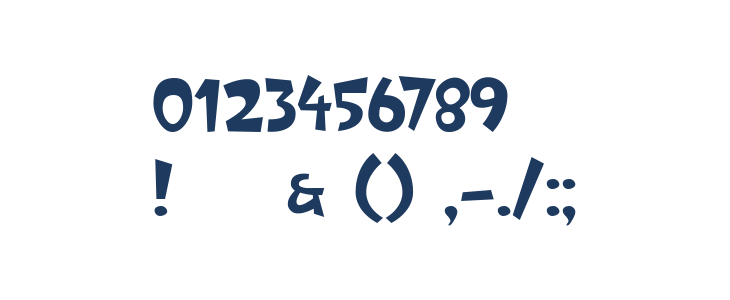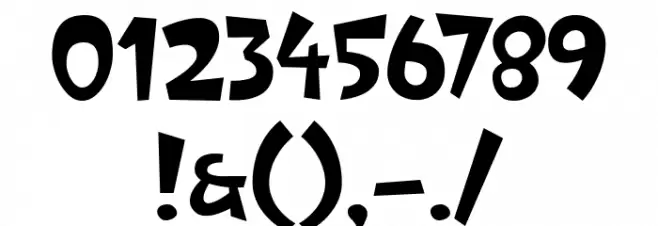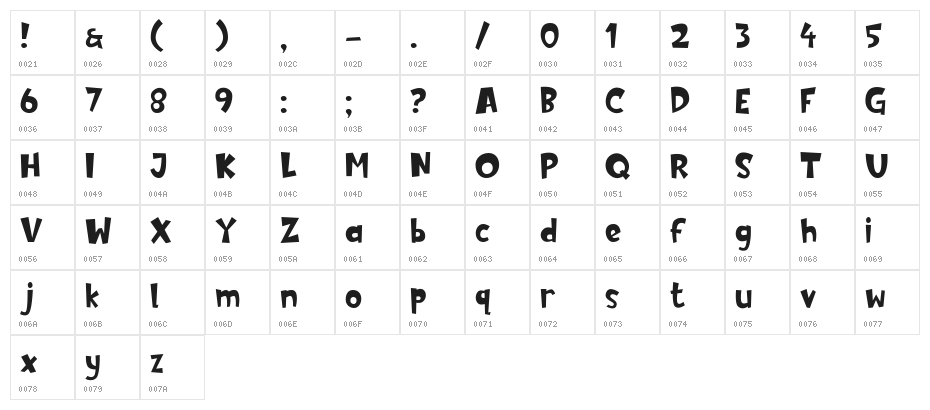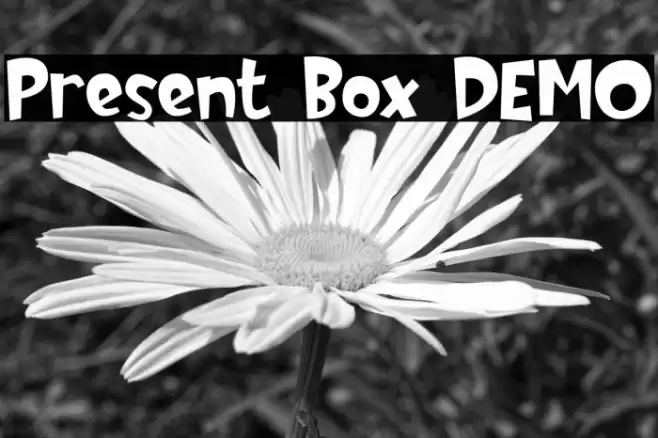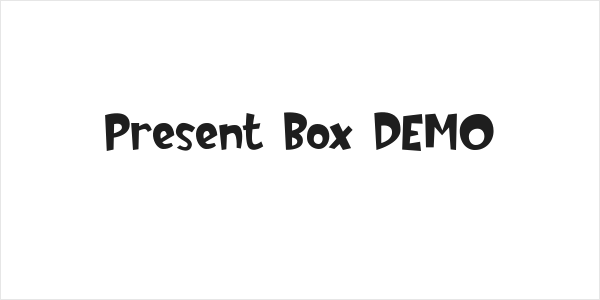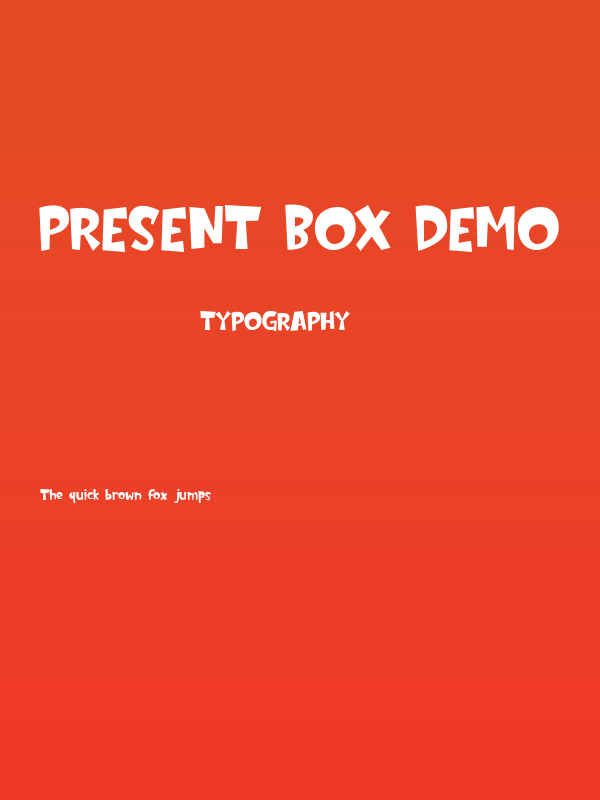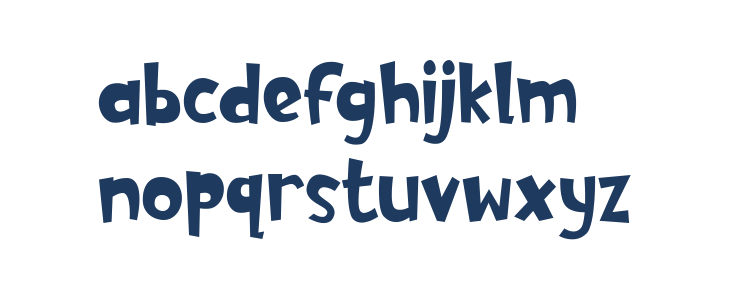
Present Box DEMO Font
Present Box DEMO Description
This playful and bold font features a whimsical and slightly irregular design, giving it a lively and energetic feel. The uppercase letters are robust and dynamic, with varying stroke thickness that adds to its playful nature. The lowercase letters maintain a similar style, with a slightly more relaxed and informal appearance. The numbers are bold and consistent with the overall style, ensuring readability while maintaining the font's unique character. Special characters are creatively designed, adding to the font's versatility for various uses. The overall impression is one of fun and creativity, making it suitable for projects that require a touch of personality and flair.
| Overall Style | Playful, Energetic, Creative |